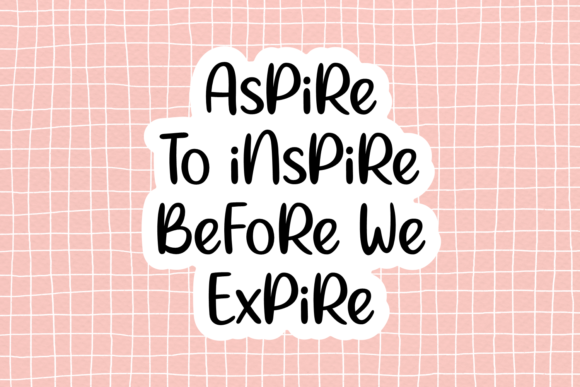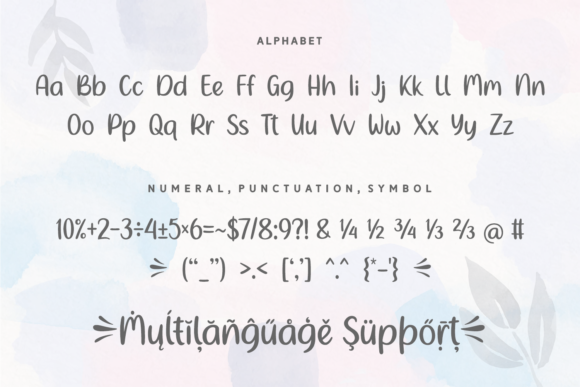
Ningst New Beginning Font
About Ningst New Beginning Font
Ningst New Beginning is a lovely and delicate script font that exudes elegance and class. This font was particularly crafted for those who need a beautiful and refreshing look to their designs.